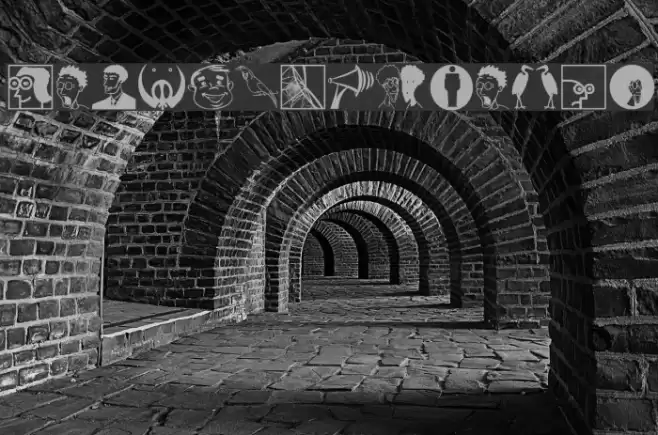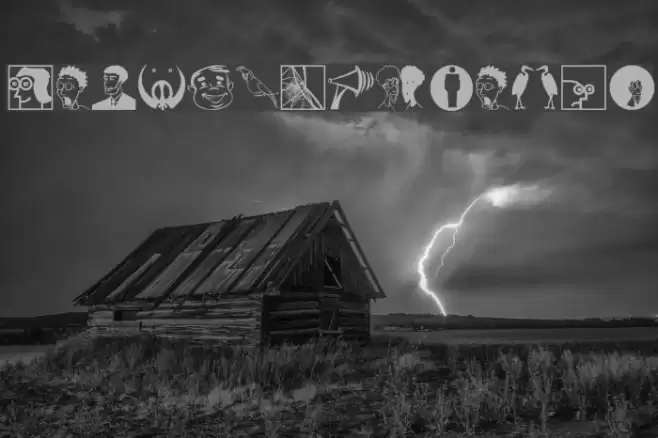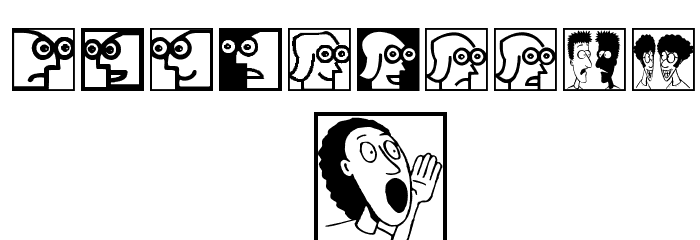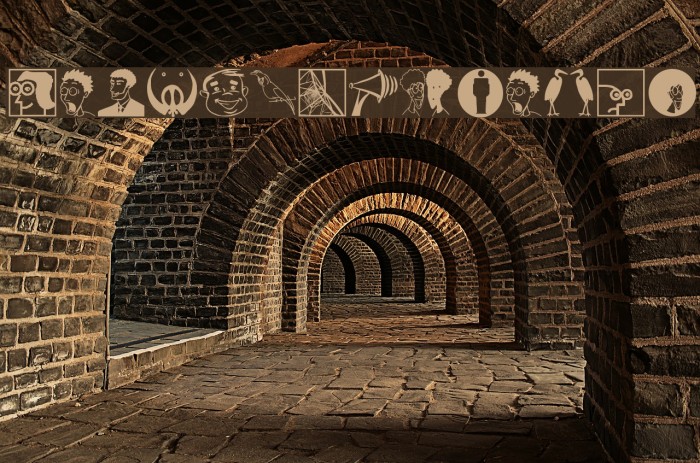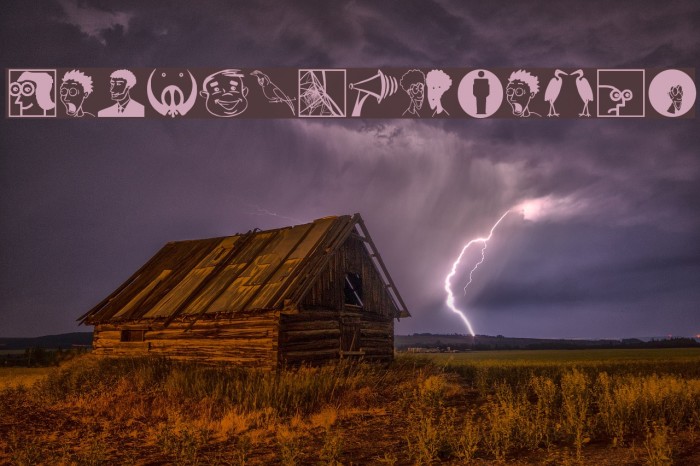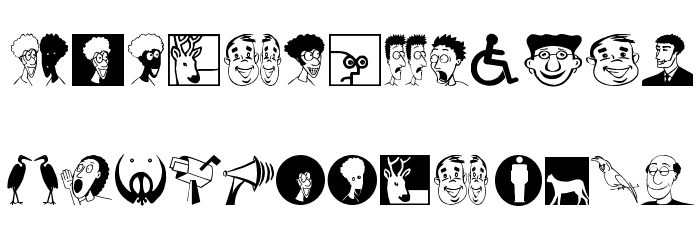
SimplyDrawings Font
SimplyDrawings Description
This collection features a series of whimsical and playful illustrations, each contained within a square frame. The designs range from abstract architectural sketches to expressive human faces and quirky animals. The style is cartoonish and exaggerated, with bold lines and high contrast between black and white. Each character or object is distinct, offering a unique visual element that stands out individually. The overall aesthetic is fun and lighthearted, making it suitable for creative and informal projects.
A playful set of cartoonish illustrations with bold lines and high contrast from Uncategorized fonts.
- Proposed Projects: Ideal for children's books, comic strips, educational materials, or playful branding projects.
- Use Case: Logos, Illustrations, Creative projects